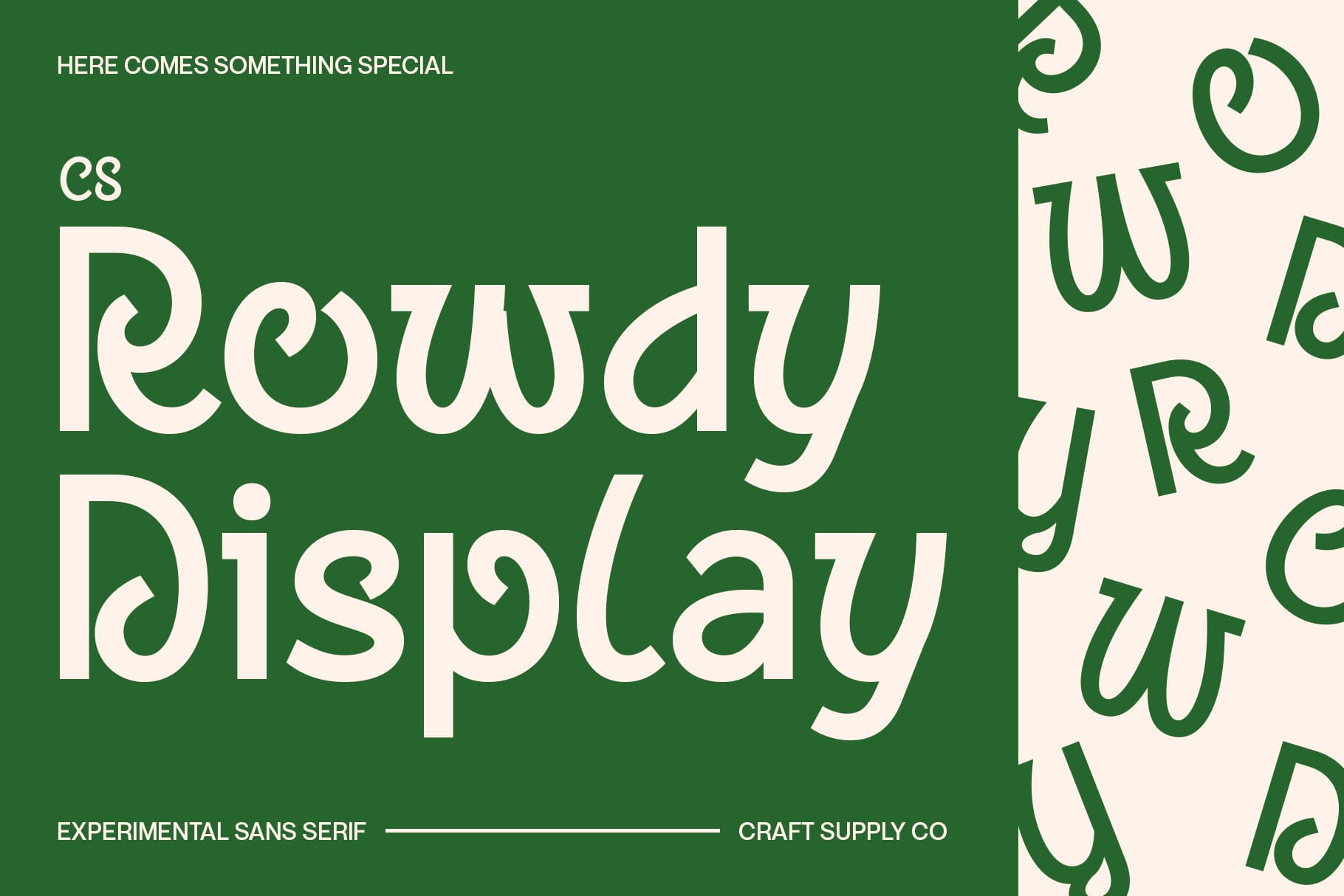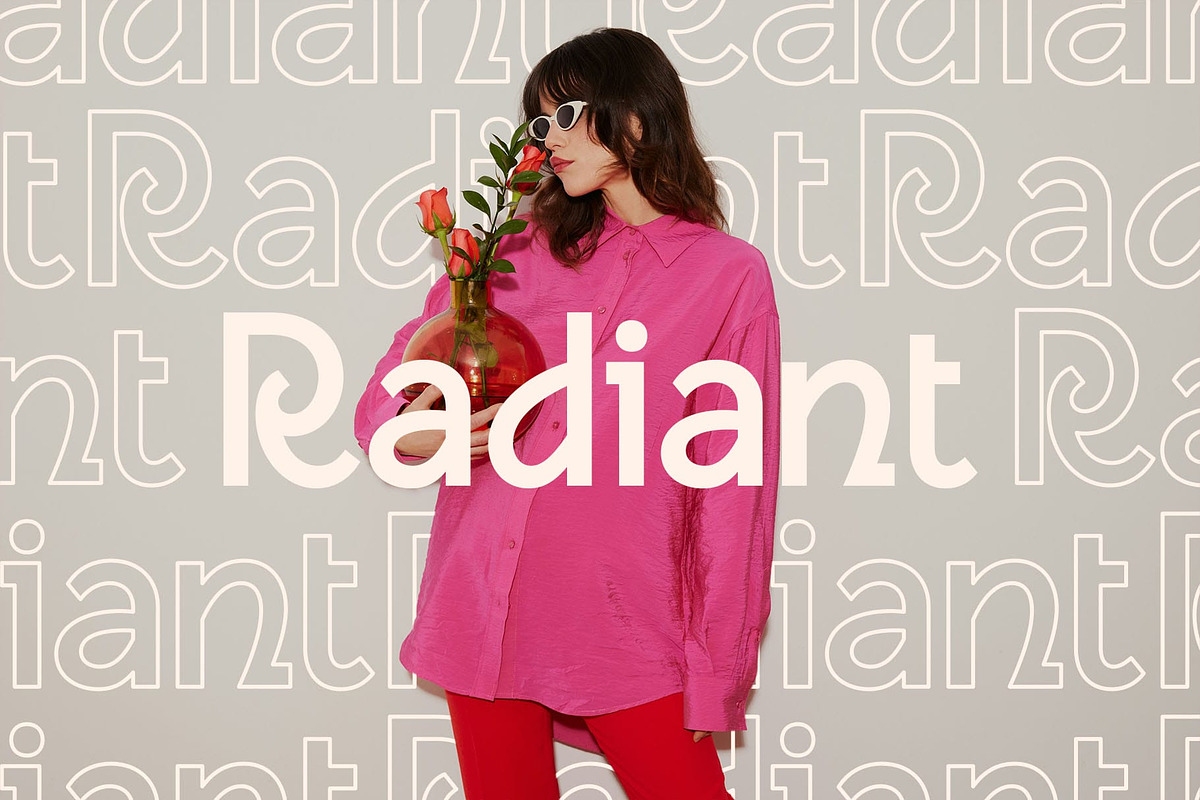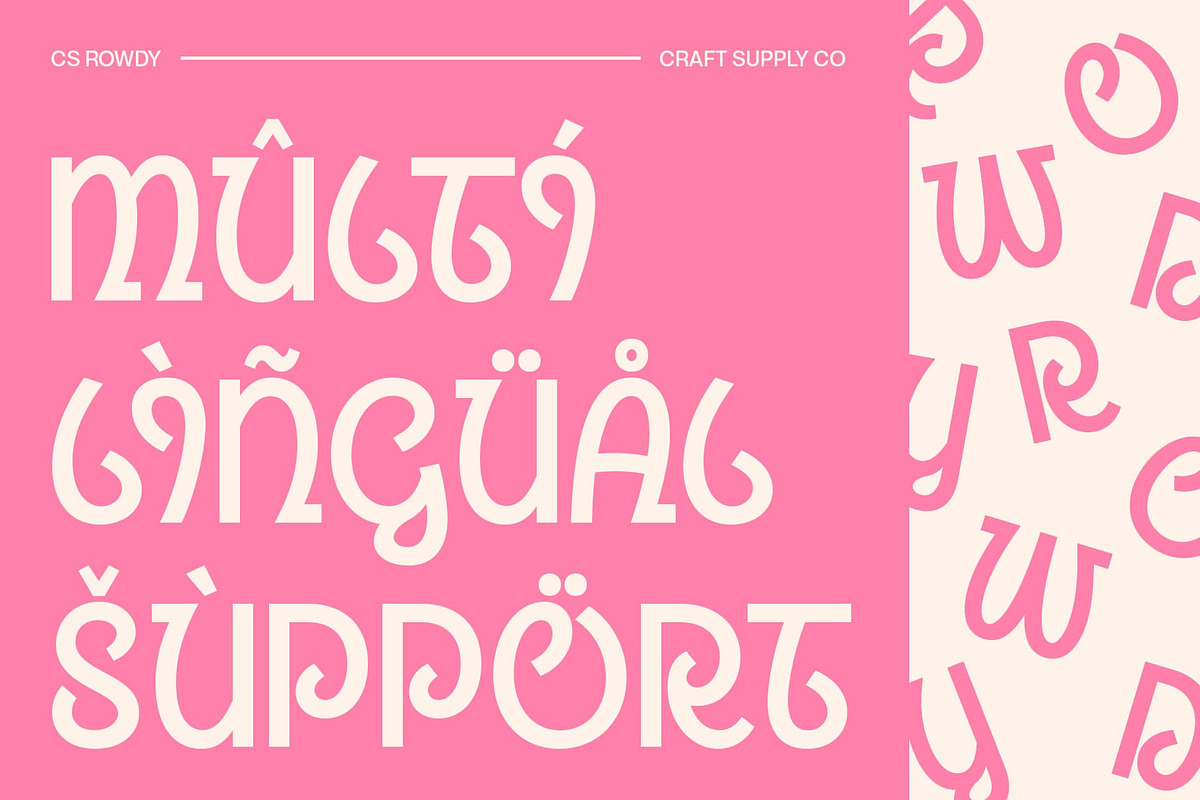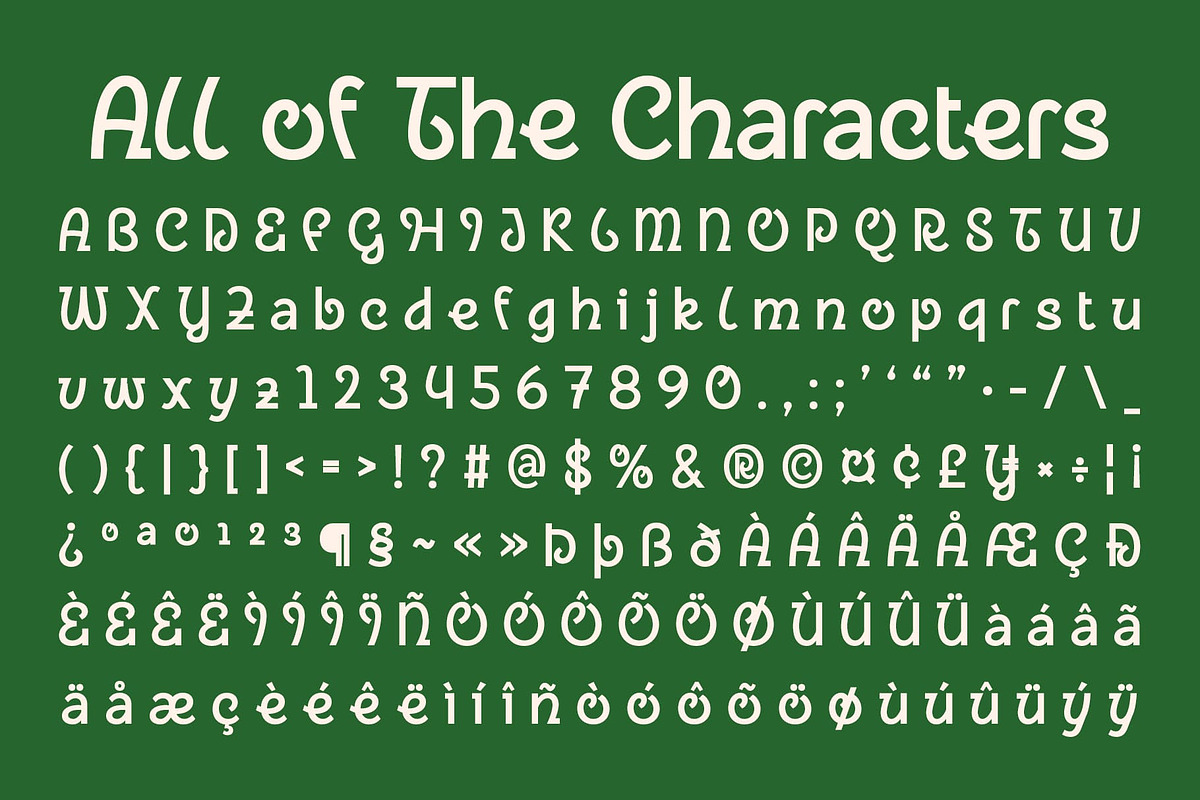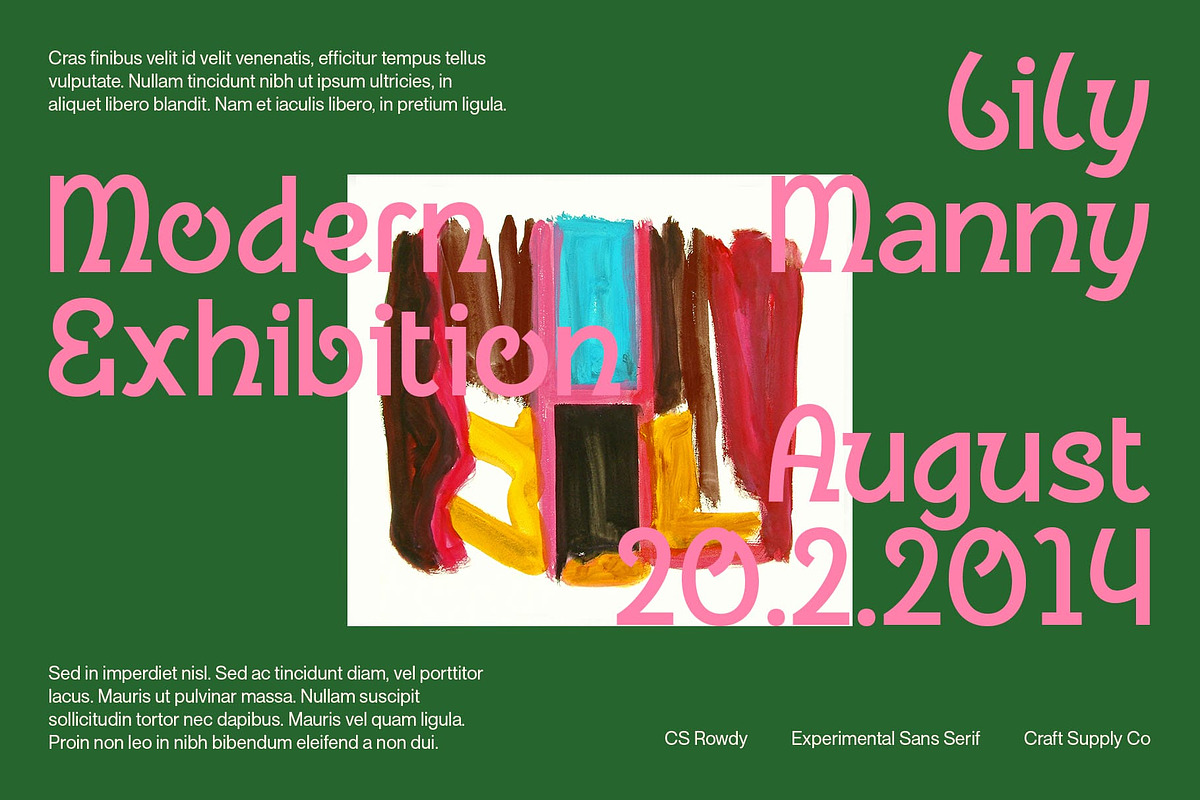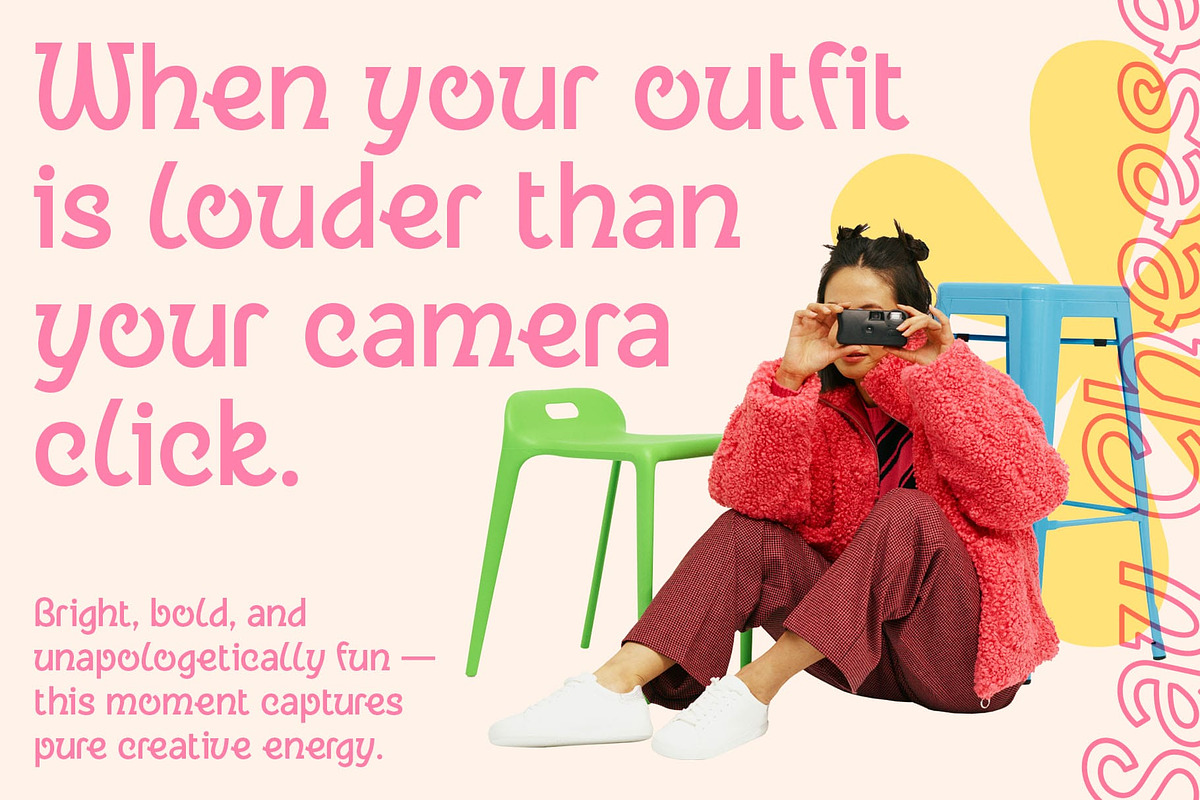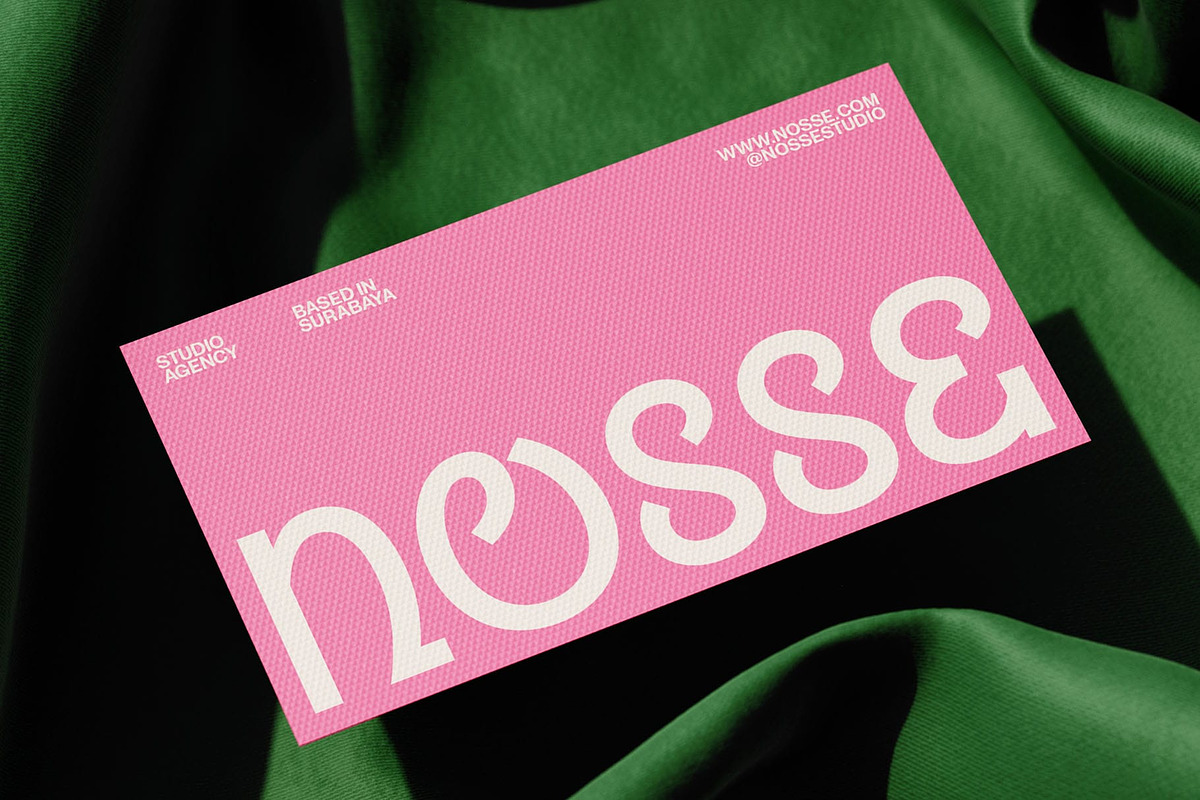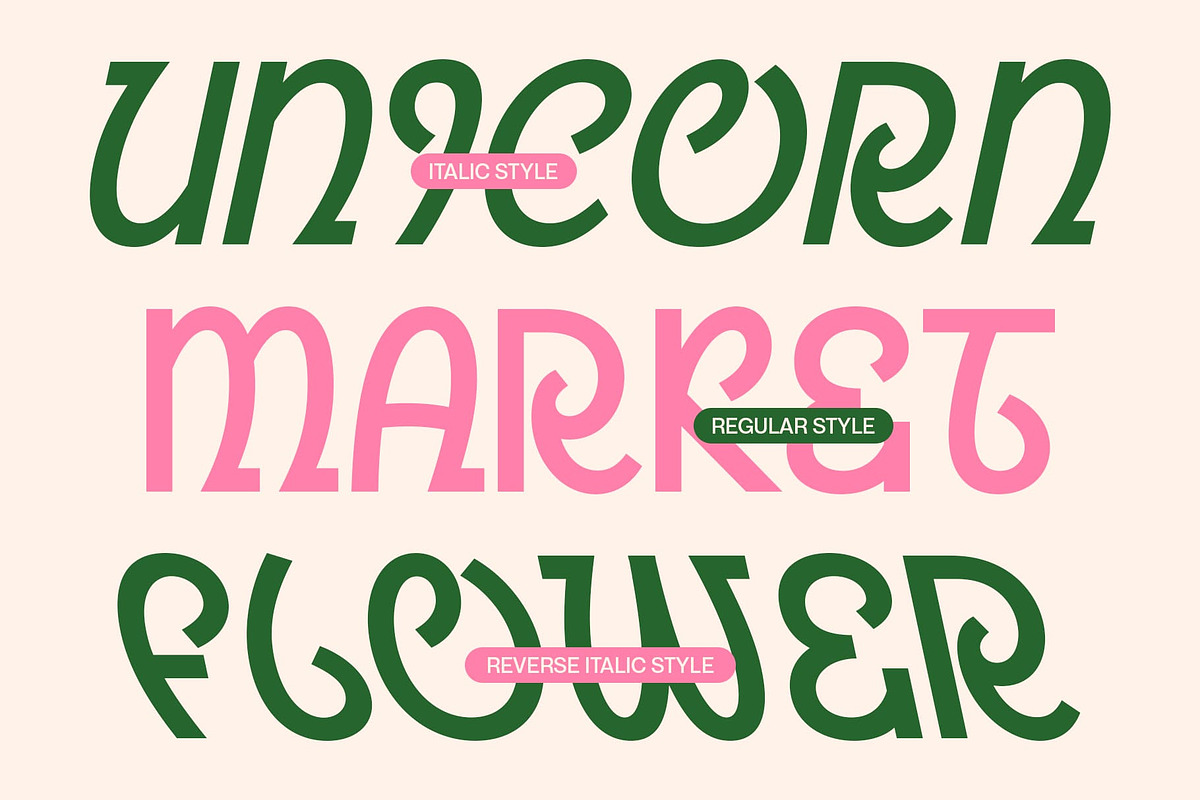
CS Rowdy – Experimental Font
CS Rowdy – Modern Experimental Sans Serif: Where Playfulness Meets Bold Creativity
Playful Sans Serif with Quirky Character This is a modern experimental sans serif font that radiates energy and individuality. Designed with a quirky, contemporary twist, this font stands out through its bold geometric structure and imaginative forms.
Distinct Letterforms for Modern Expression Each character in this font is uniquely sculpted, combining unconventional proportions with confident design. The result is a typeface that feels fresh and innovative, making it an ideal choice for designers who want to break free from tradition. Its expressive shapes and dynamic rhythm inject personality into every project, transforming simple text into a visual statement.
Perfect for Playful and Creative Branding This font thrives in posters, logos, packaging, and editorial layouts, where impact and originality matter most. Whether used for a headline or a bold typographic composition, this font brings a lively, engaging feel to your design. It’s perfect for brands that want to convey confidence, fun, and modernity all at once.
A Font That Dares to Be Different More than just a sans serif, this font celebrates the beauty of experimentation. Its bold style invites designers to play, explore, and push creative limits. With its combination of quirkiness and modern structure, delivers a truly distinctive aesthetic making every design feel innovative, energetic, and full of character.
- CS Rowdy Regular
- CS Rowdy Italic
- CS Rowdy Reverse Italic